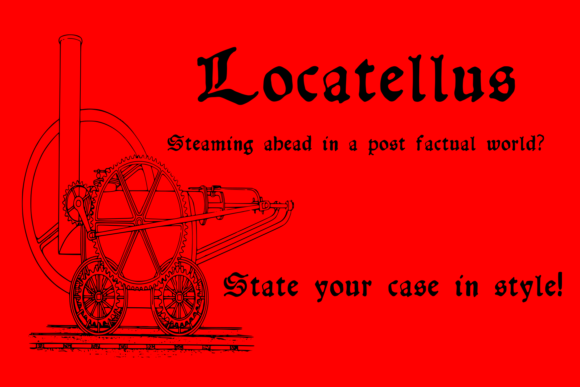
Journey through time with Locatellus, a captivating blackletter font that transports you to the era of medieval scribes and ancient manuscripts. Its intricate details and strong personality make it the perfect choice for designers seeking a font that exudes historical charm and timeless elegance.
Crafted by the skilled hands of Proportional Lime, Locatellus is a unique and versatile font that captures the essence of old-world aesthetics. Its distinctive curves and sharp edges create a striking visual impact, adding a touch of intrigue and sophistication to any design.
Enter a world of endless creative possibilities with Locatellus. Whether you're designing an Italian menu, a vintage poster, or a captivating logo, this font will elevate your work to new heights. Its ability to blend seamlessly with various design styles makes it a true asset for any designer's toolkit.
Unleash your imagination and let Locatellus take you on a journey through history. Whether you're a seasoned designer or just starting out, this font will ignite your creativity and leave a lasting impression on your audience. Experience the magic of Locatellus and transform your designs into captivating works of art.